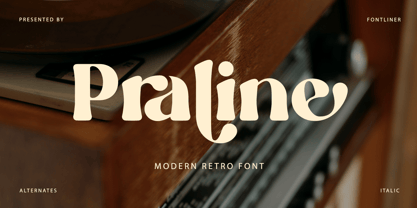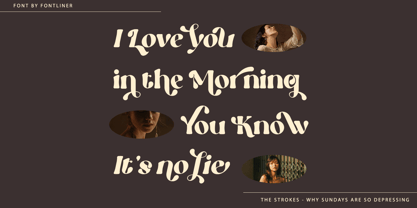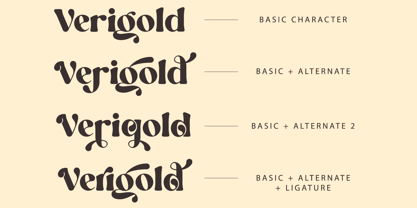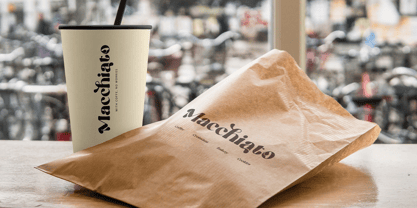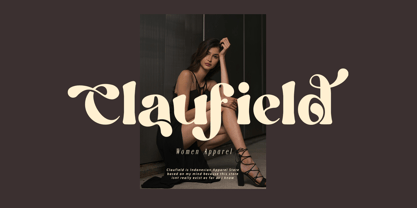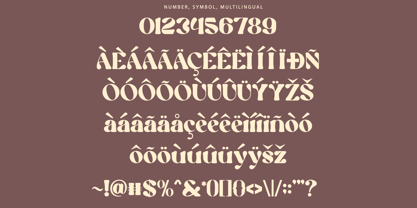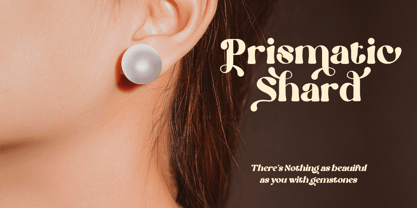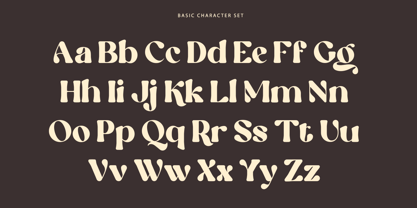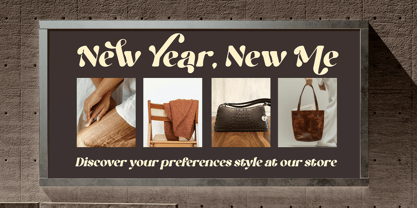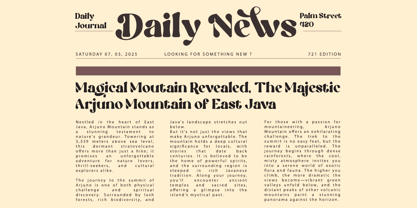
Praline
by Font Liner
The Praline Font Family was designed by Ghina Luthfiarieska and published by Font Liner. Praline contains 2 styles and family package options. More about this family
Praline is a modern retro serif font with gentle curves giving it a soft, warm, classy, ​​organic and features 50+ Stylistic Alternates Character, and More OpenType Features and is equipped with PUA encoded. Praline perfect for big headers, editorials, advertising, branding, packaging and so much more.
- Stylistic Alternates
- Multilingual Support
Designers: Ghina Luthfiarieska
Foundry: Font Liner